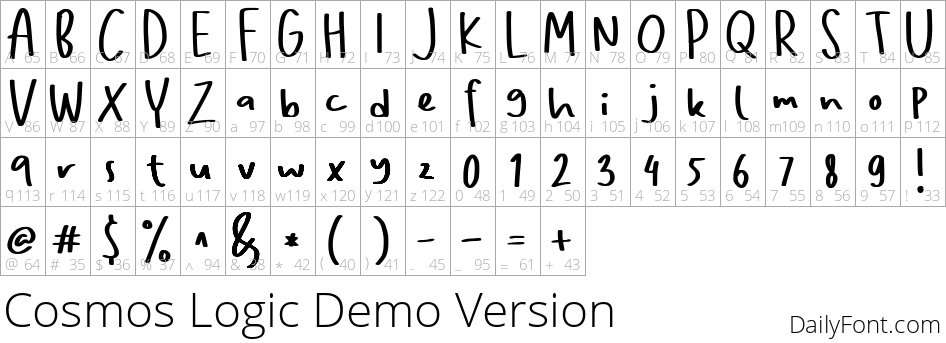
Cosmos Logic
Cosmos Logic is a quirky font that brings a unique charm to any design project. Its playful and whimsical character makes it an ideal choice for product packaging and branding efforts, ensuring your message stands out in a crowded marketplace. With its distinctive letterforms, Cosmos Logic adds personality and flair to magazine layouts and social media graphics, helping you engage your audience and create memorable visuals.
Whether you're planning a wedding invitation or looking to express intriguing words against a captivating background, Cosmos Logic provides the creative edge you need. This font not only enhances readability but also captures the essence of fun and creativity, making it a versatile addition to your design toolkit. Explore the playful side of typography with Cosmos Logic, and let your creativity soar.